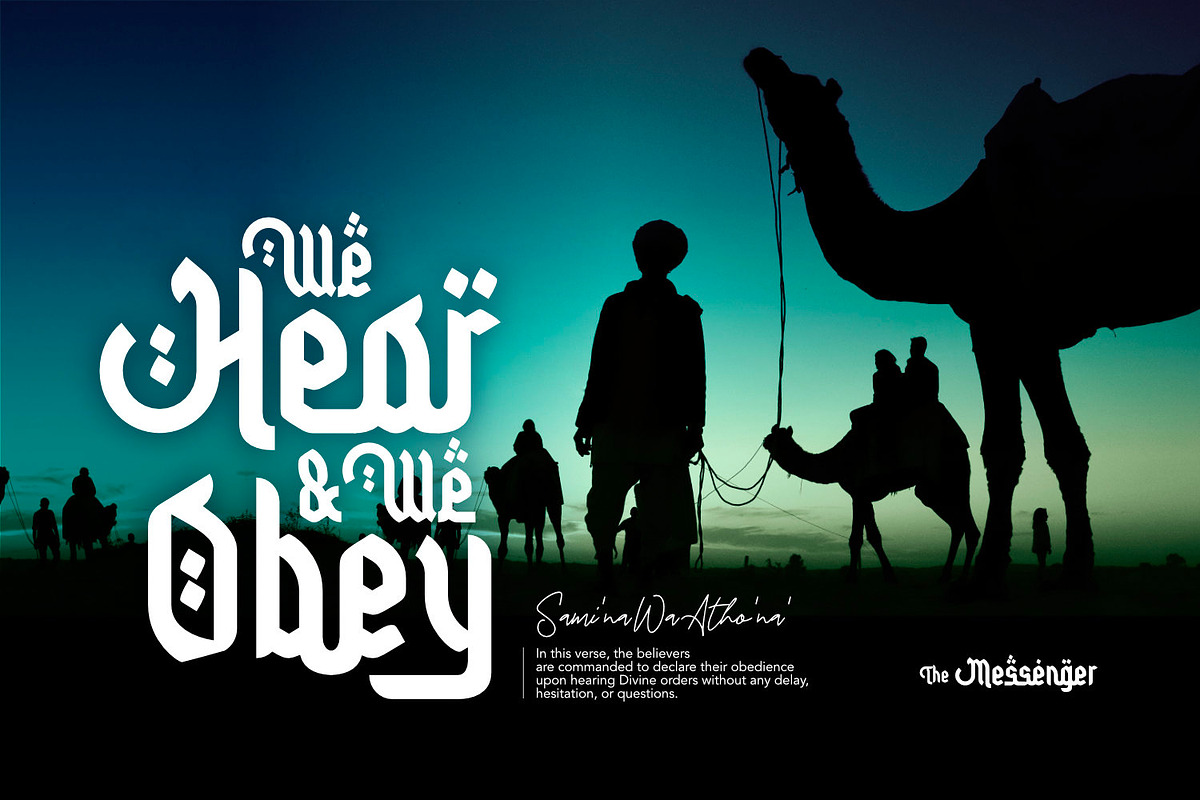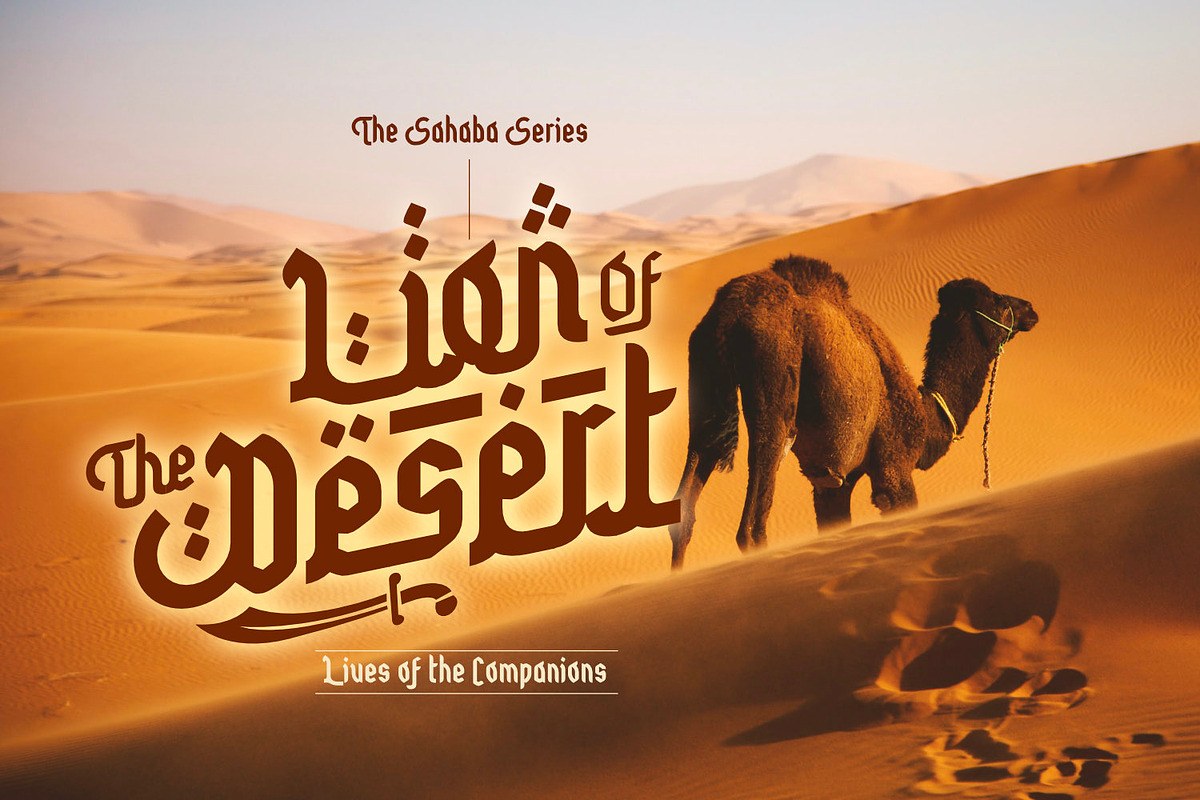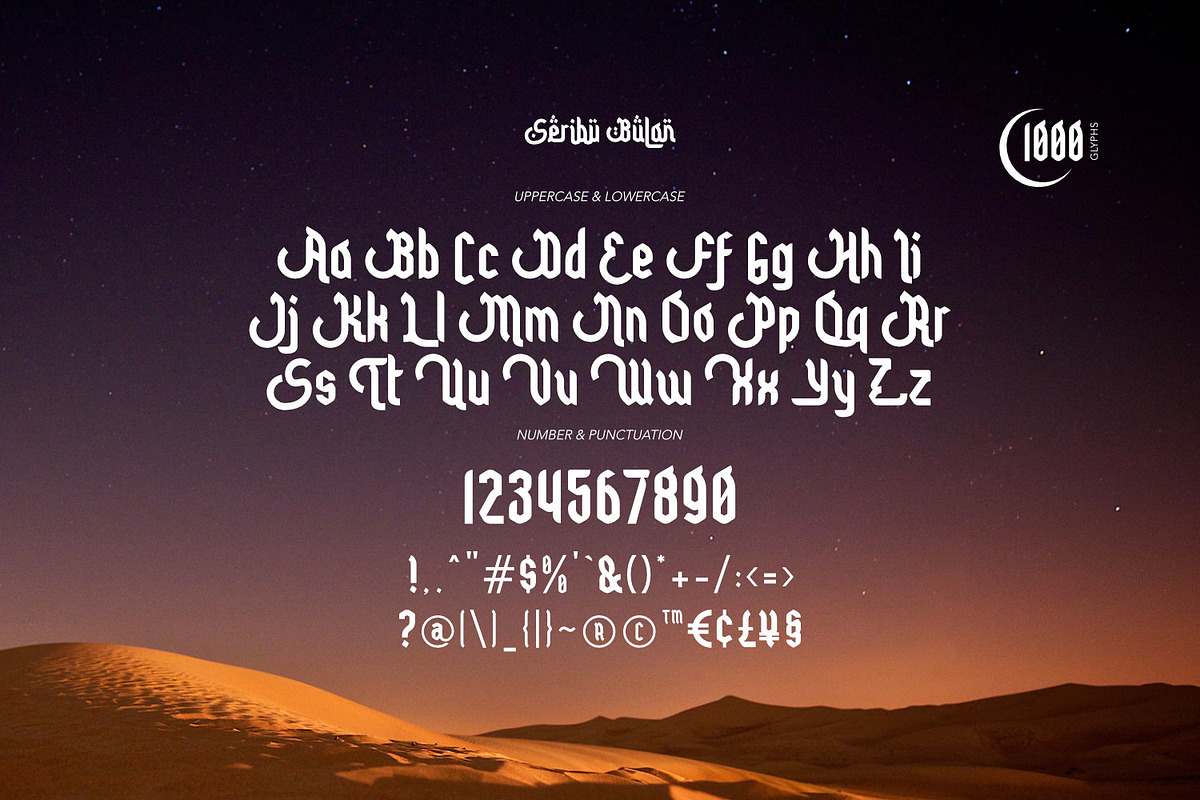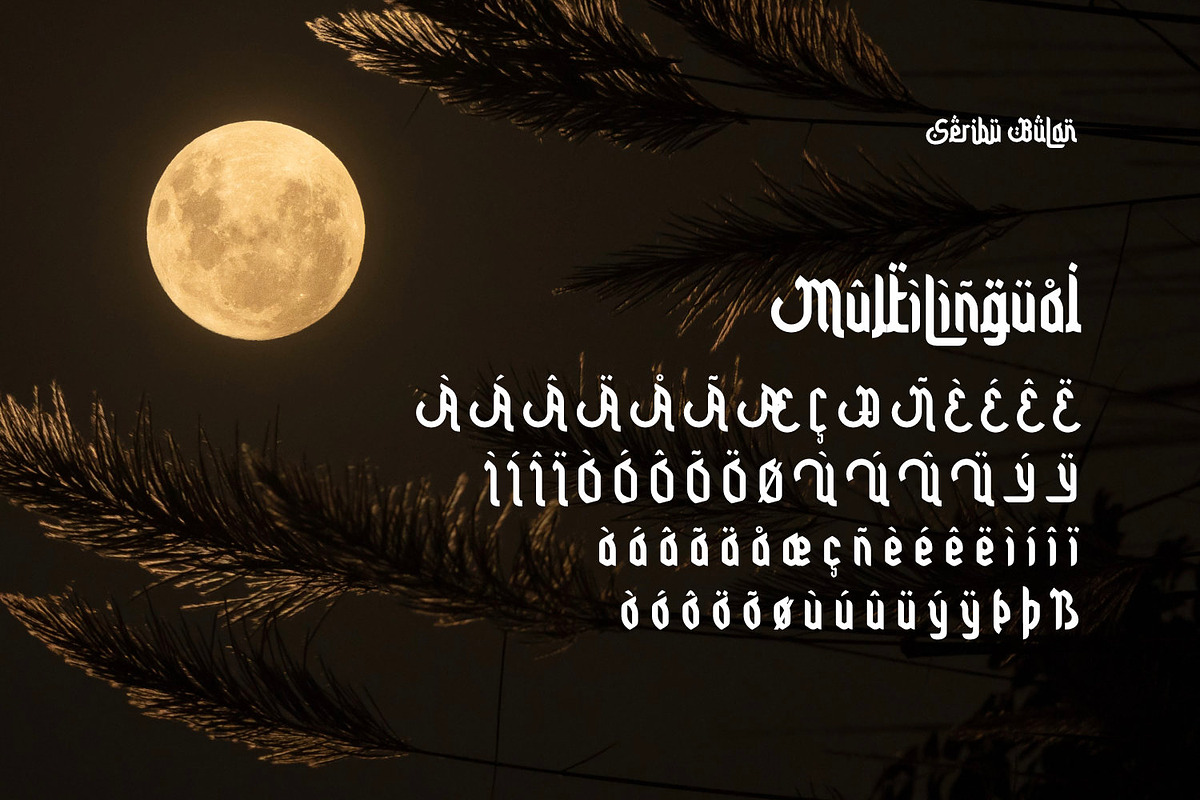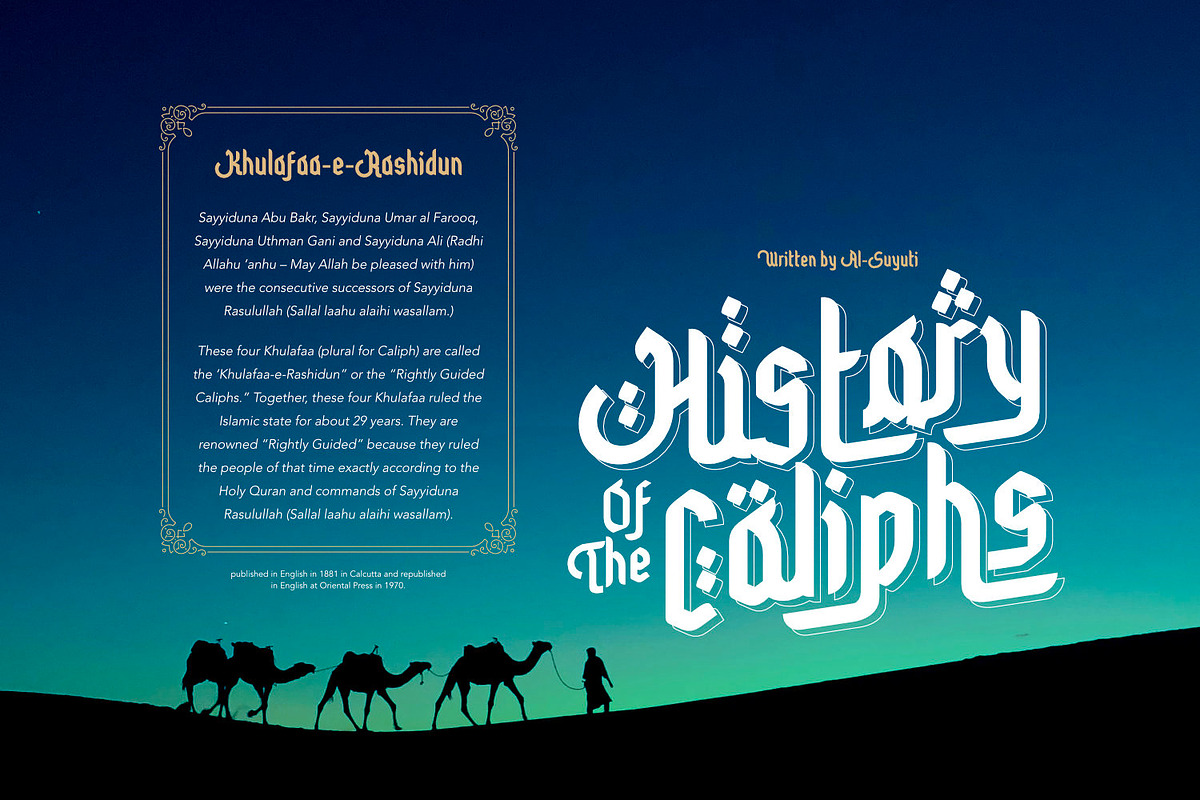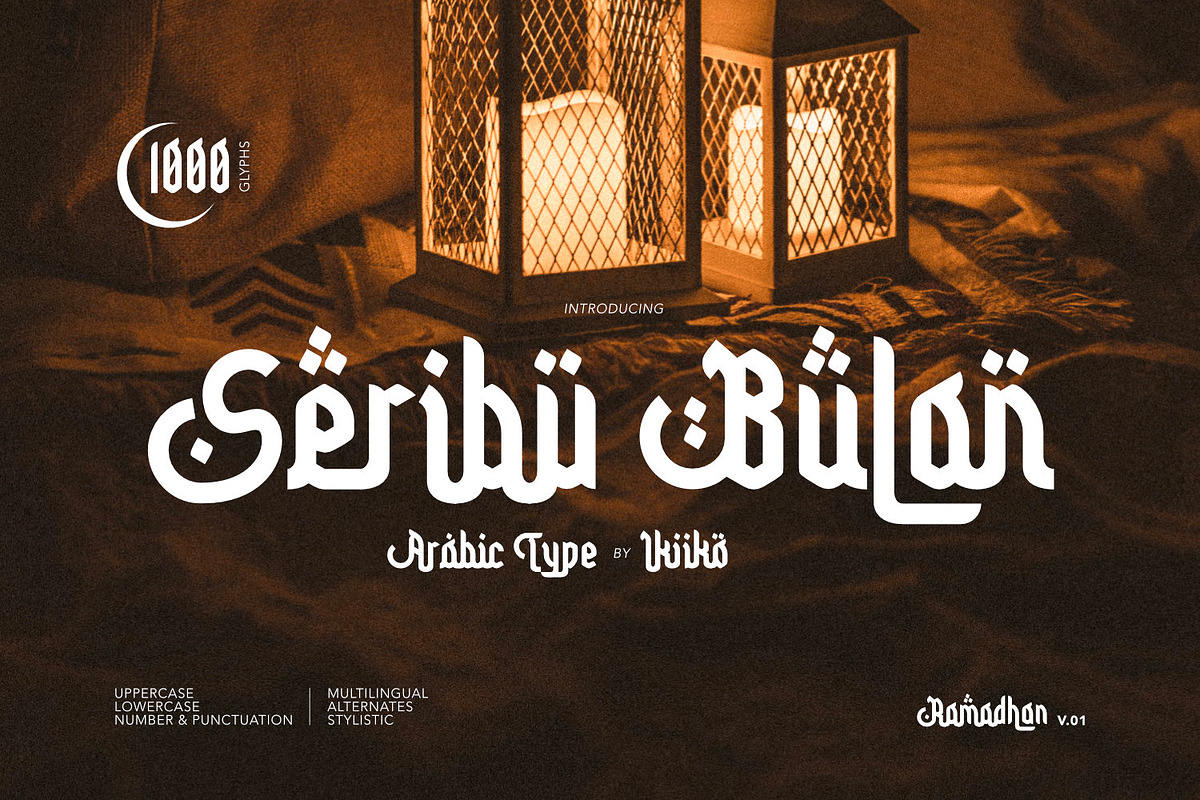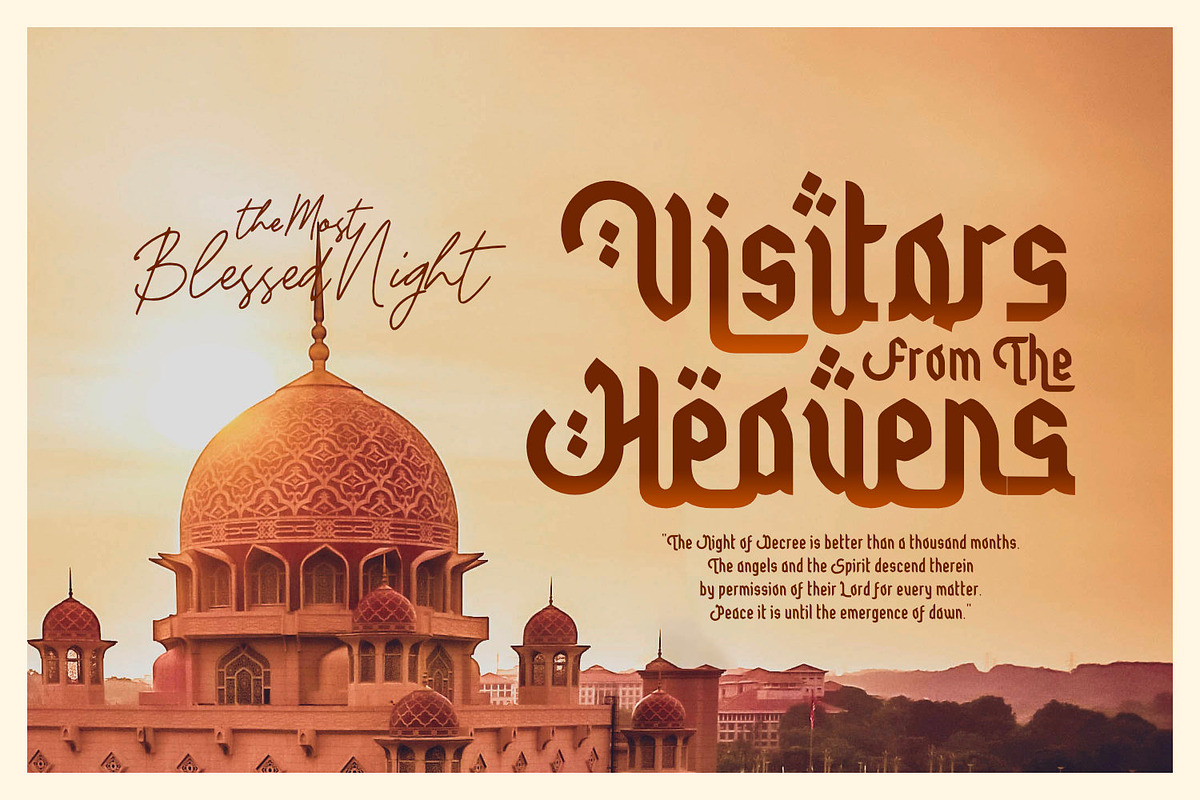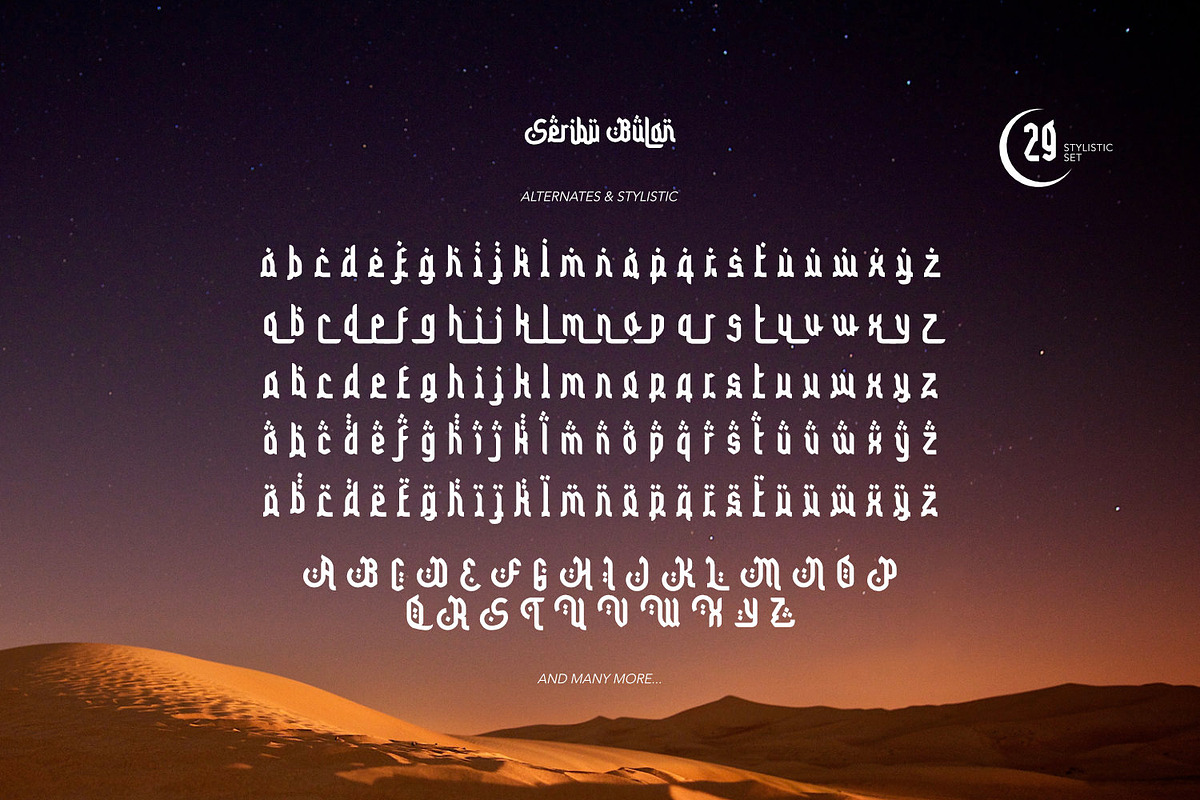
Seribu Bulan - Arabic Type
Introducing Seribu Bulan - Arabic Type, created by ikiiko.
Seribu Bulan is inspired by term in the Islamic world about the night of Lailatul Qadr in the month of Ramadan. Seribu Bulan is a display type adapted from the form of a slab serif style. This typeface has a wide selection of alternative styles to choose from. From hooked letters, to the typical symbols of arabic letters, you can play around by using various stylistic sets to form the character you want.
This typeface is perfect for an logo, magazine layout, header & headline design, food & beverages product, packaging, poster, quotes, or simply as a stylish text overlay to any background image that need an a middle east vibes.
- Number & Punctuation
- Complete Stylistic Set
- Complete Alternates